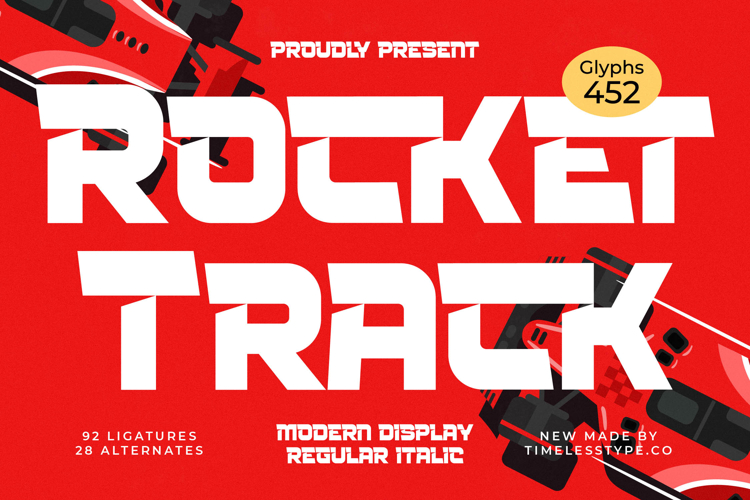
Rocket Track - Modern Display Font
Unleash unparalleled visual impact with Rocket Track - Modern Display Font. This exceptional typeface commands attention, meticulously crafted for designers demanding a bold, dynamic, and cutting-edge aesthetic. Its striking geometric forms and distinctive, sharp angles convey speed and modernity, making headlines and logos instantly memorable. Rocket Track - Modern Display Font is engineered to make a powerful, contemporary statement.
Experience the precision of truly innovative design. Rocket Track - Modern Display Font features a unique interplay of solid structures and ingenious cut-ins, creating a high-contrast look that is both sophisticated and energetic. With 92 ligatures and 28 alternates, it offers unrivaled creative flexibility to tailor your typographic compositions with finesse. This font isn't just a design; it's a professional statement.
Perfectly suited for an array of high-impact applications, Rocket Track - Modern Display Font excels where a strong presence is vital. It is ideal for luxury branding, dynamic packaging, compelling advertising, sports marketing, gaming titles, and technology ventures. With its extensive multilingual support, Rocket Track - Modern Display Font adapts seamlessly across global markets, making it incredibly versatile for international projects.